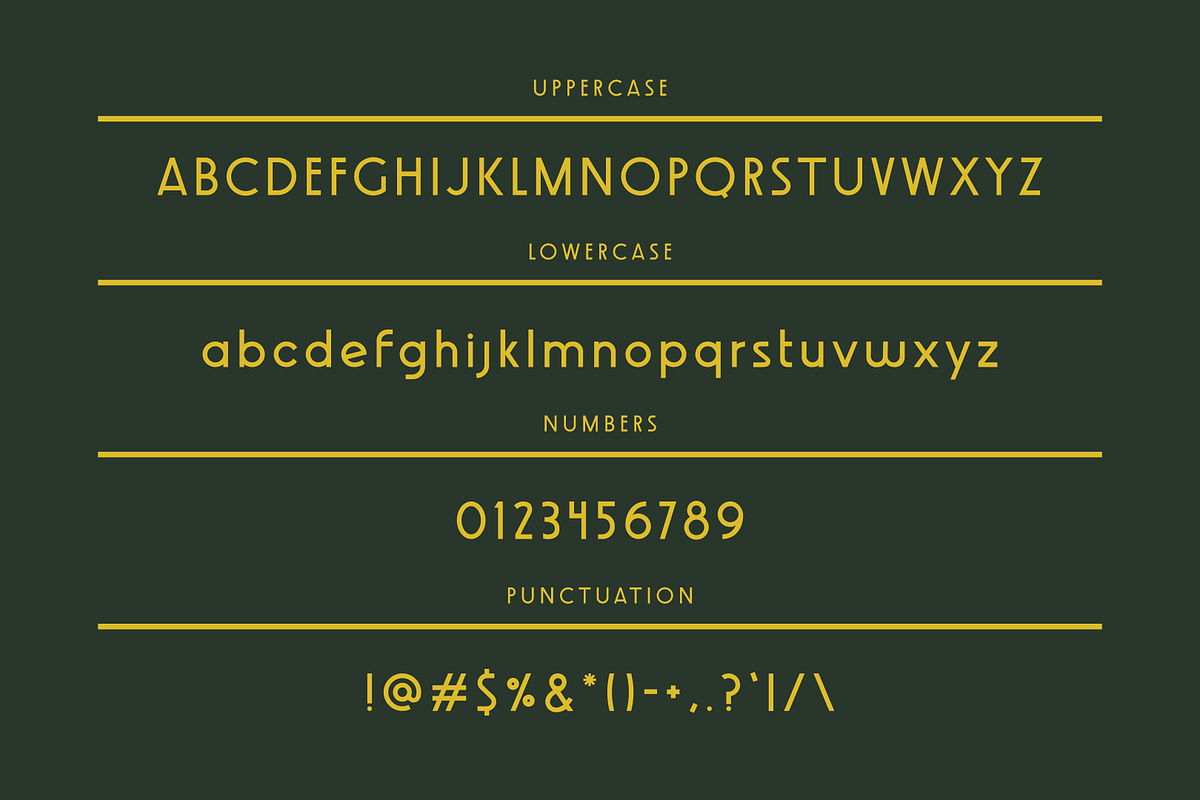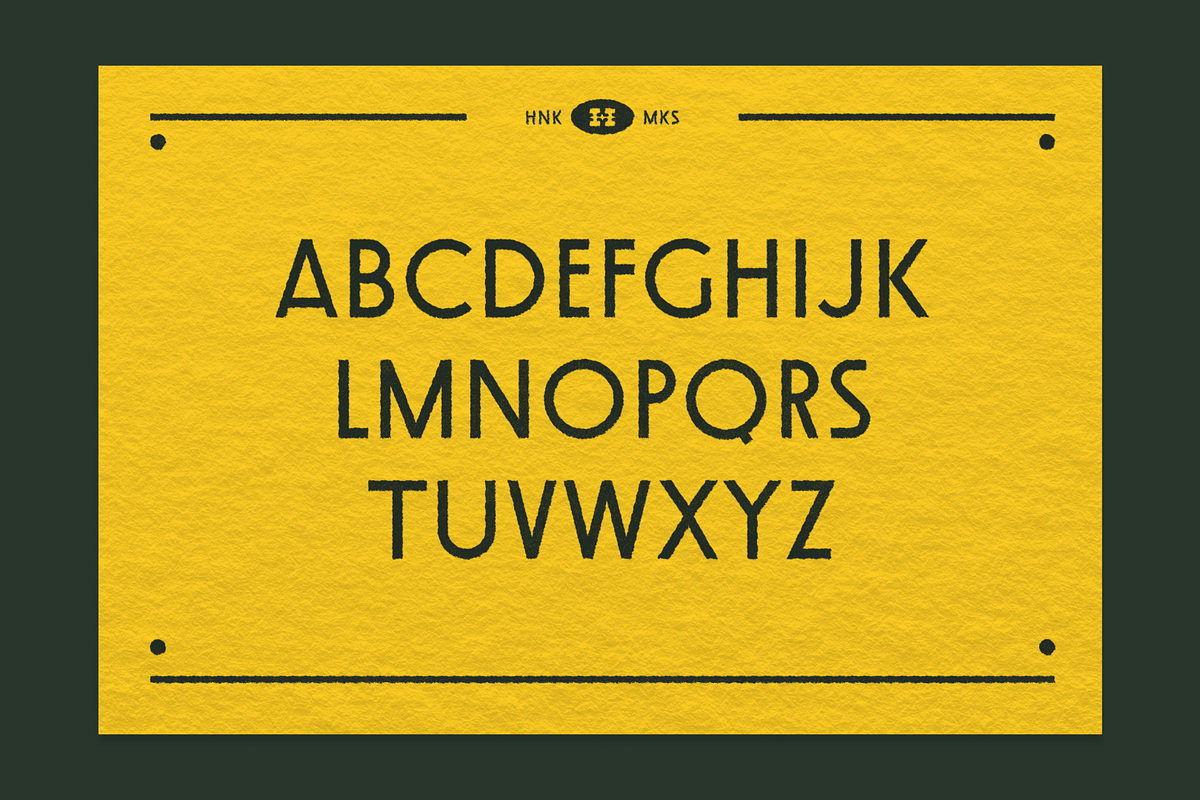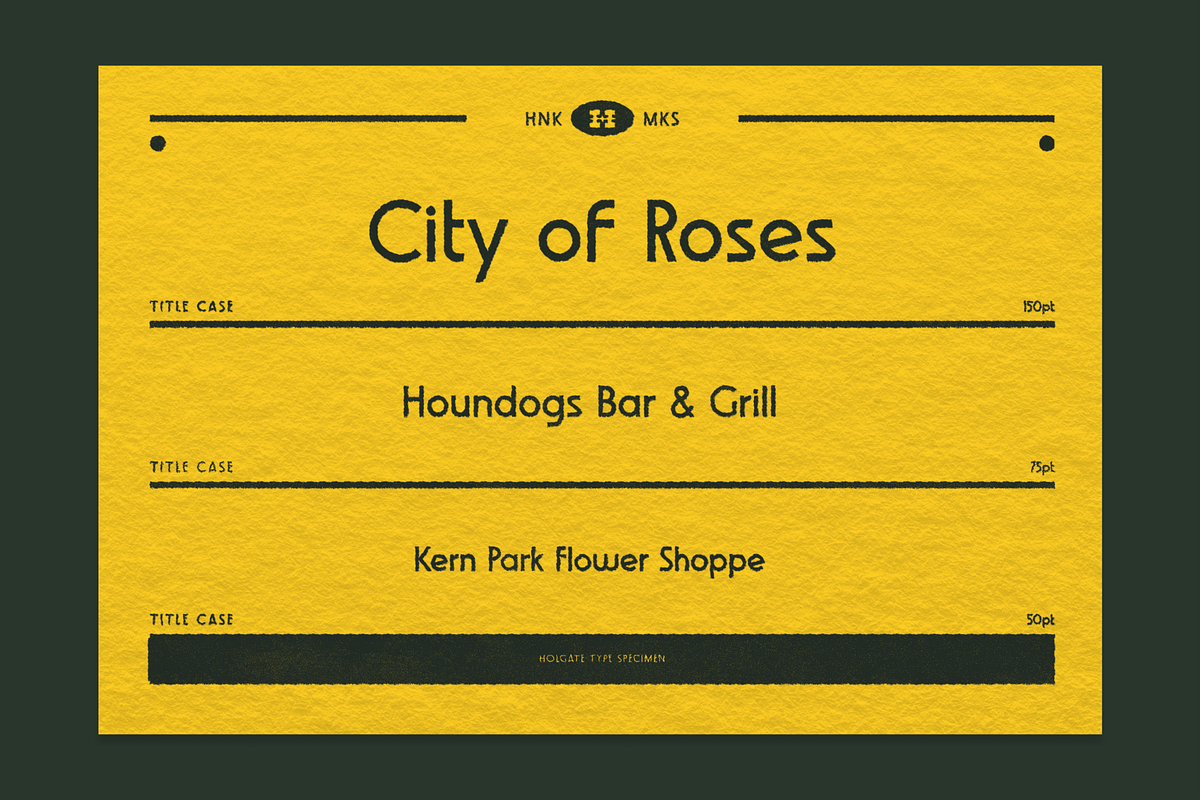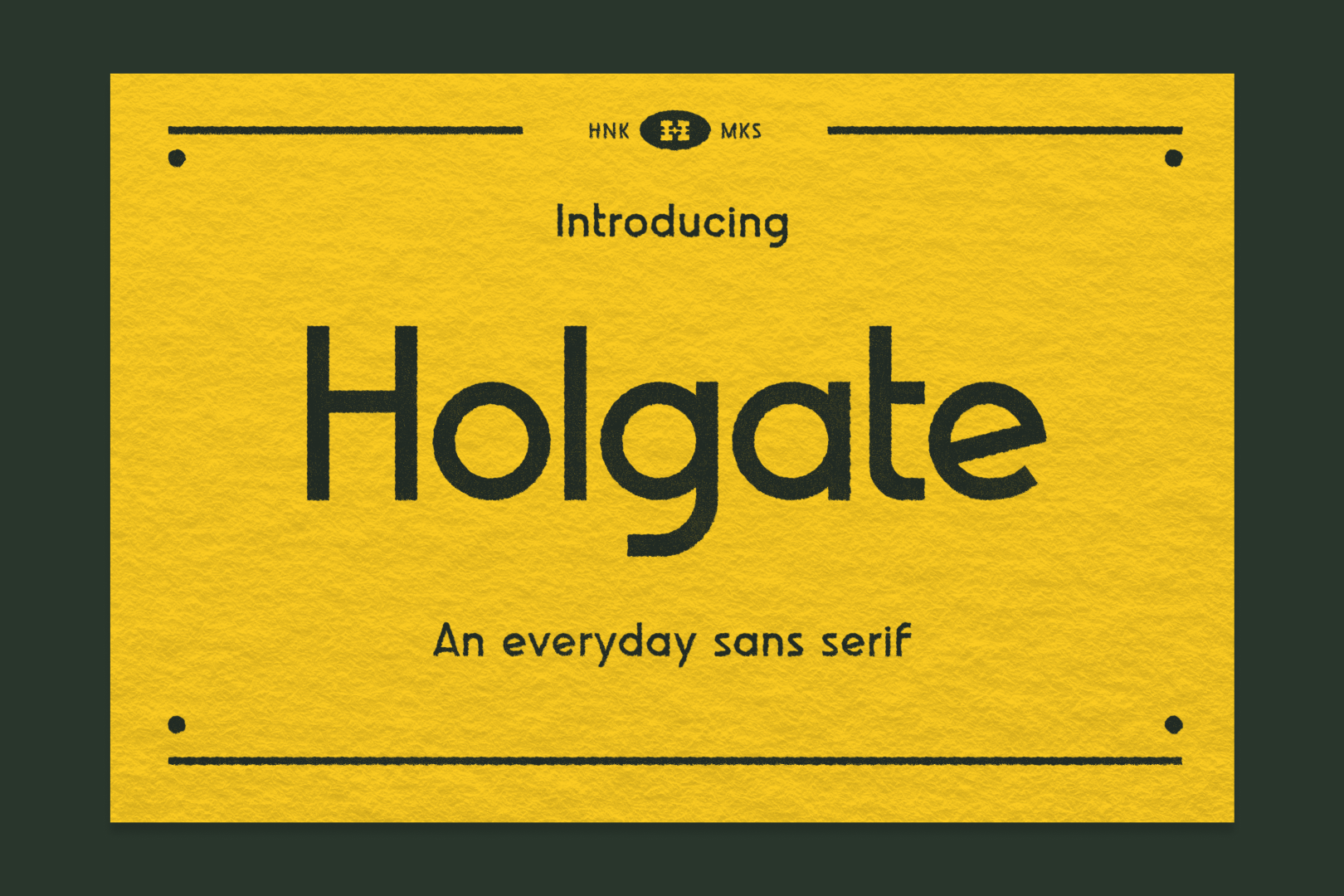
Holgate, a Hank Makes Font
Holgate - your daily commuter.
In need of a no nonsense typeface for internal Hank Makes brand documents, Holgate was born!
UPPERCASE, lowercase, numerals and basic punctuation, there’s nothing this guy can’t spell!